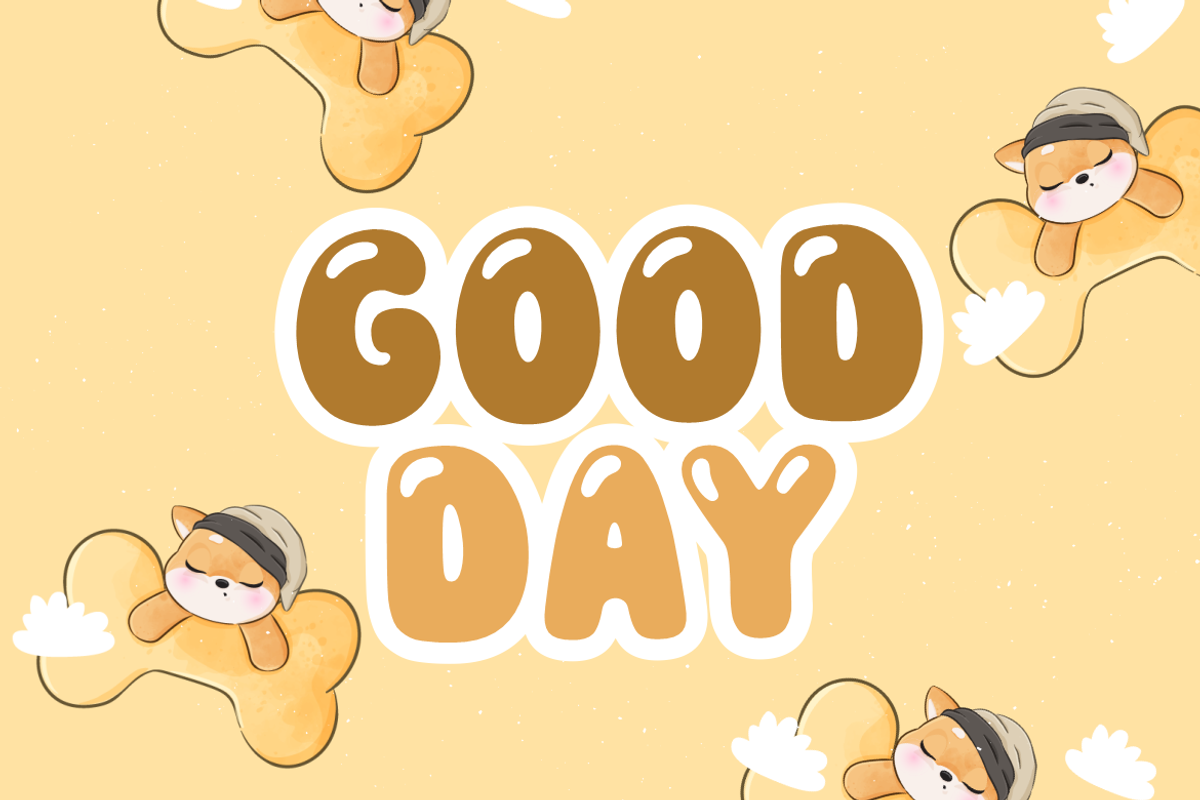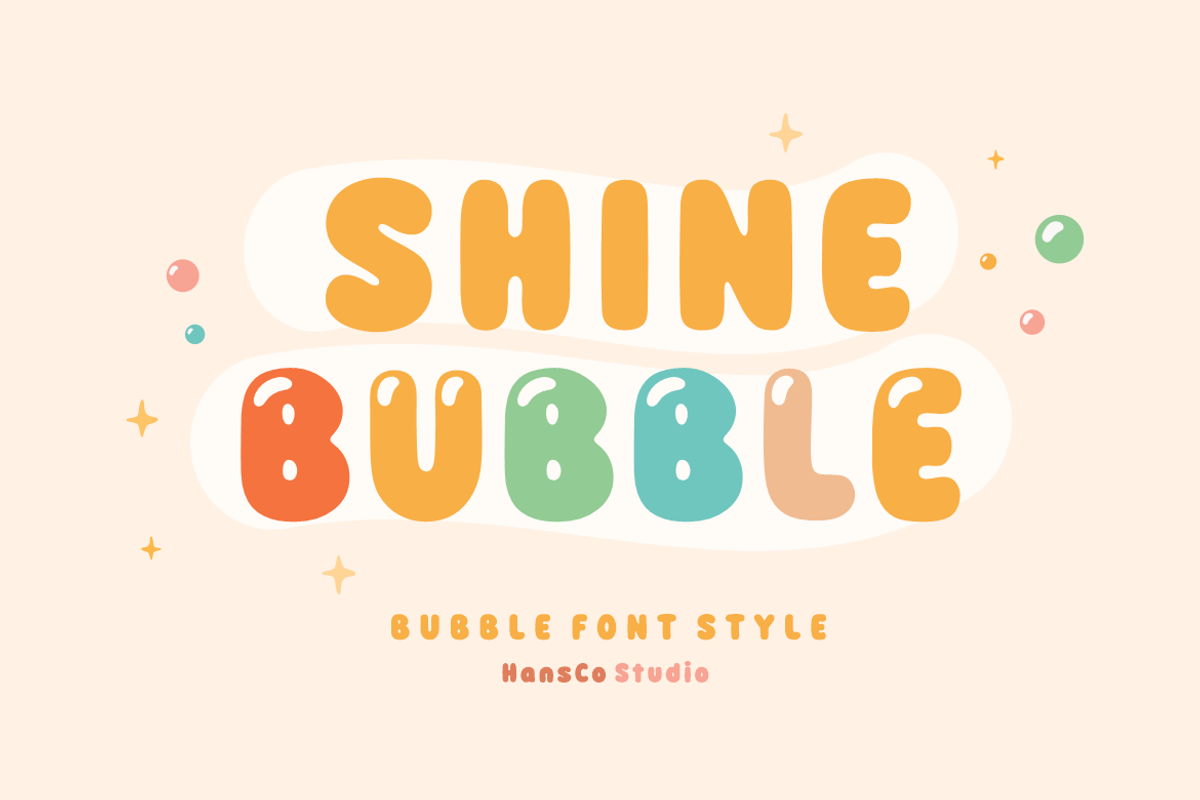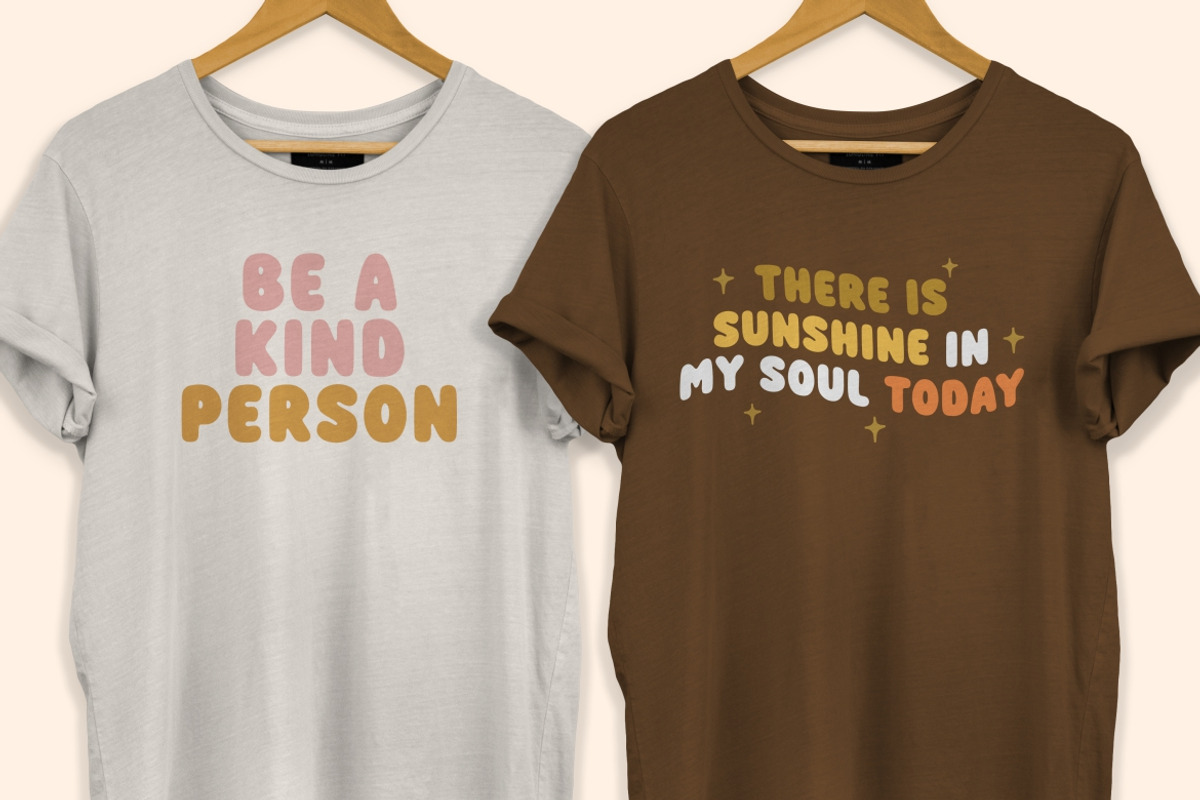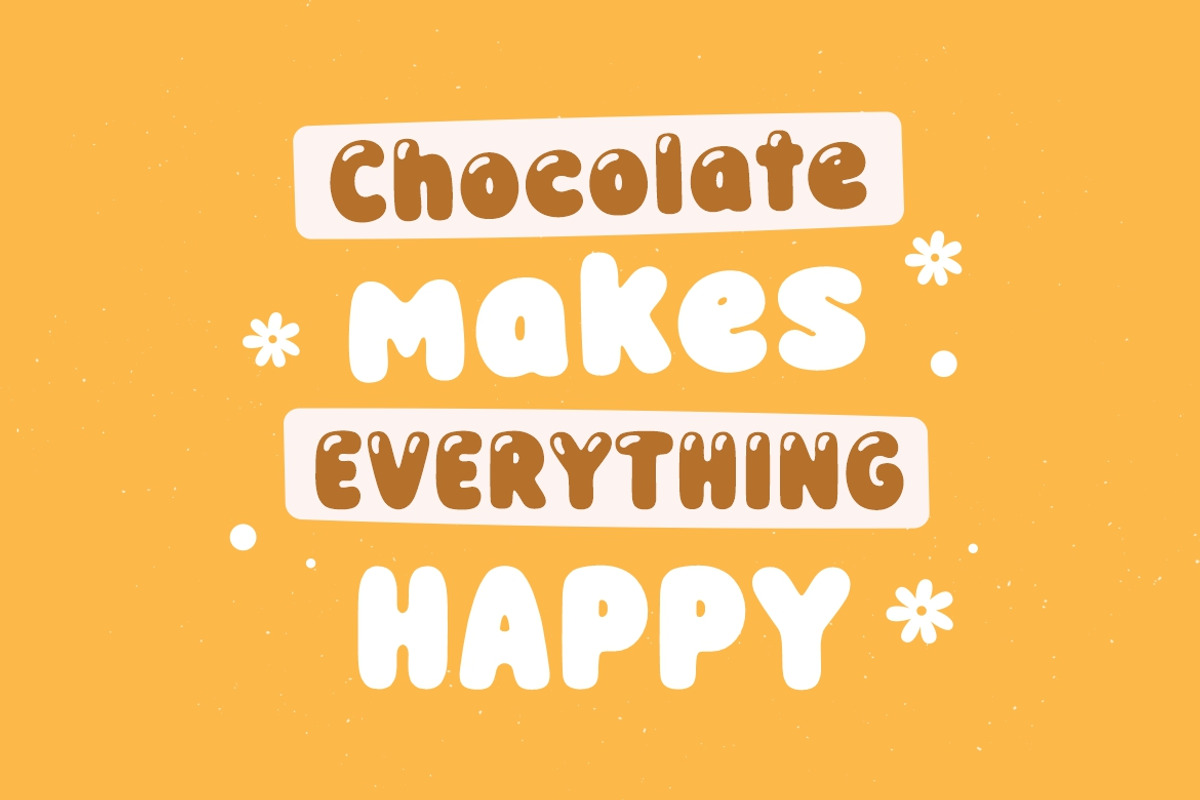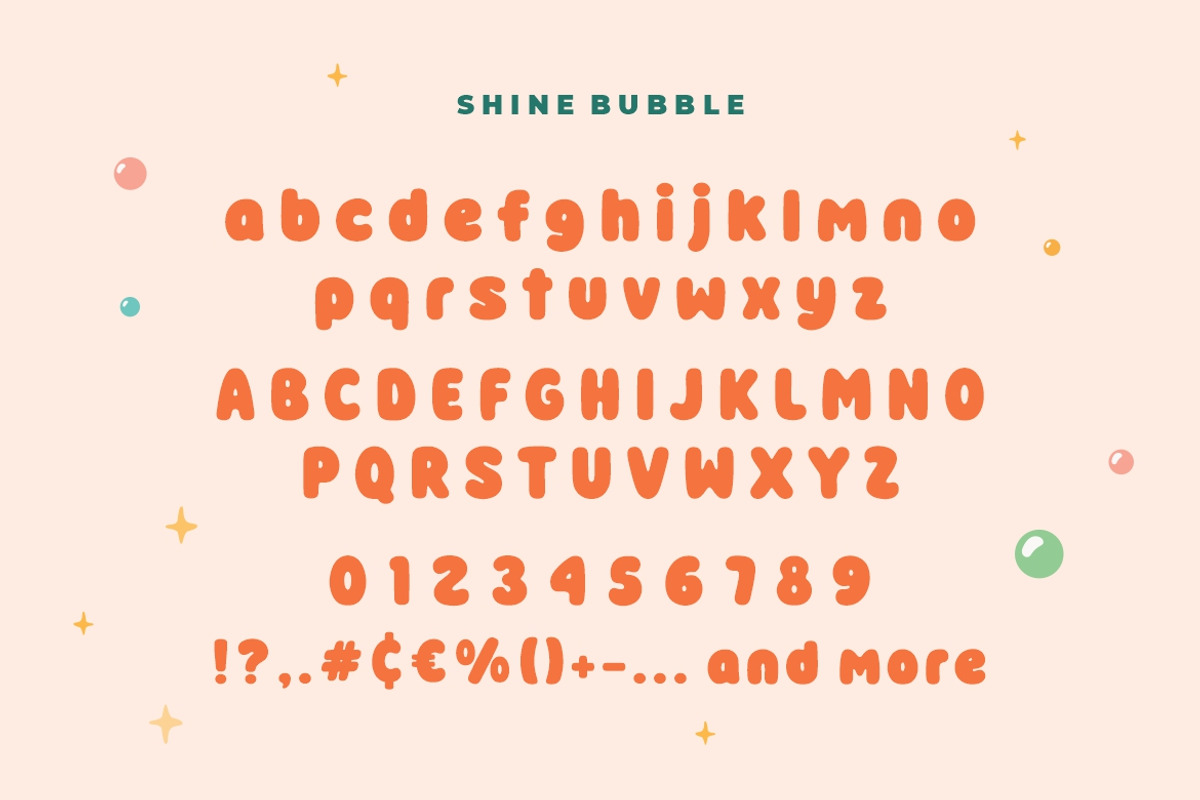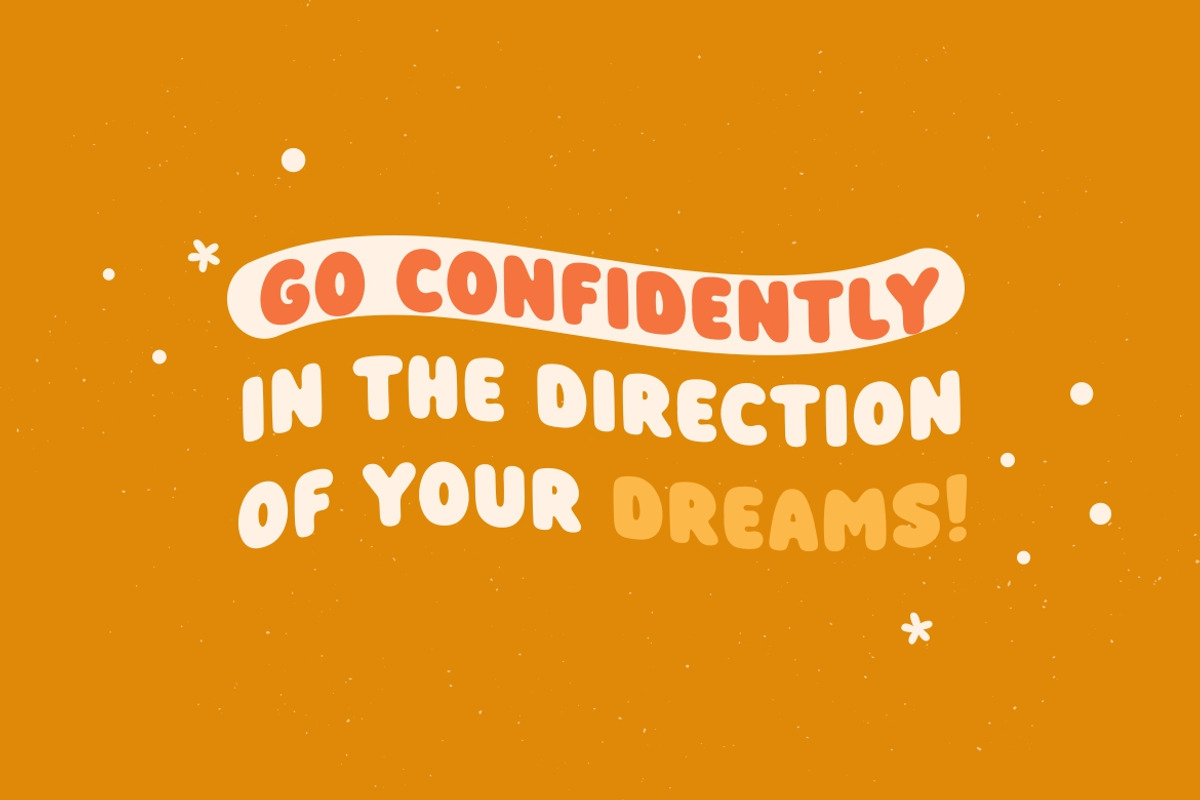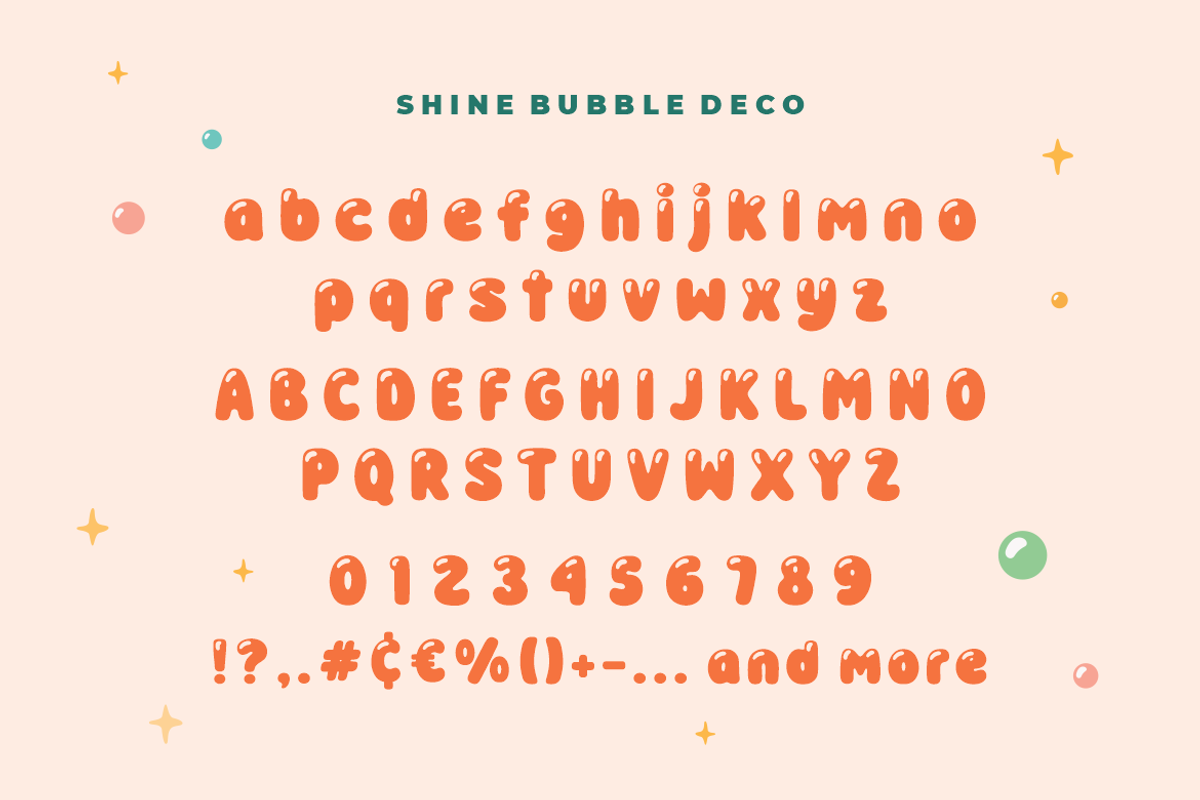
Shine Bubble Font
Shine Bubble font is a simple sans display font with a bubble feel. Use this display font to add that simple modern retro touch to any design idea you can think of. Masterfully designed to become a true favorite, this font has the potential to bring each of your creative ideas to the highest level!
Very suitable for logotype, Stickers, Packaging design, Cricut Project, headlines, brand identity, t shirt or apparel industry, posters, magazines, books, YouTube, Instagram, websites, or any of your creative design projects.